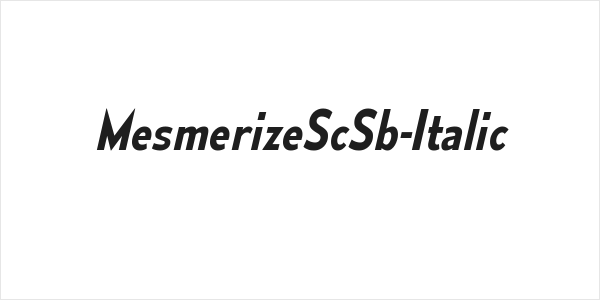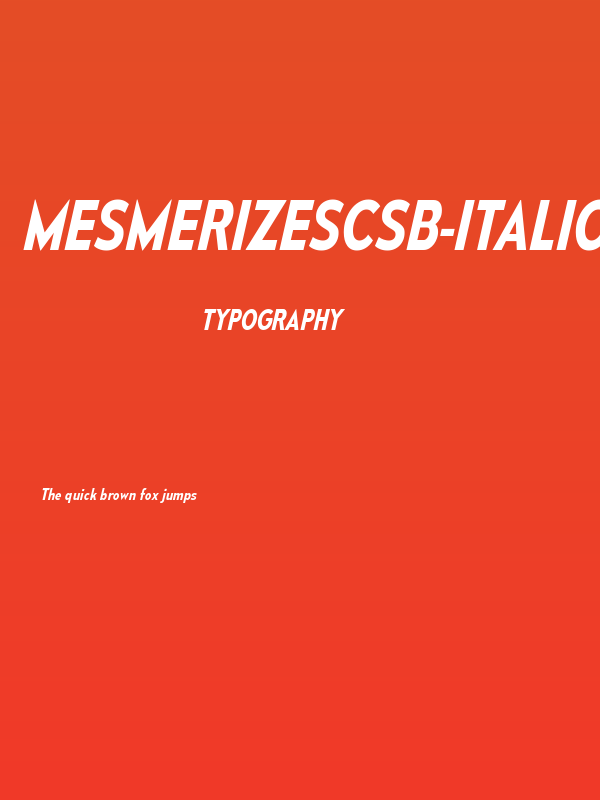
MesmerizeScSb-Italic Font
MesmerizeScSb-Italic Description
This font features a dynamic and modern italic style with a strong emphasis on forward movement and energy. The characters are slightly condensed, giving it a sleek appearance. The strokes are bold and consistent, providing a uniform look across all characters. The font maintains a medium contrast in stroke thickness, ensuring readability while adding a touch of elegance. Its slanted design adds a sense of urgency and sophistication, making it suitable for various creative applications.
| Use Case | Headlines, Logos, Advertising |
| Proposed Projects | Ideal for branding, advertising, and editorial design projects where a modern and energetic feel is desired. |